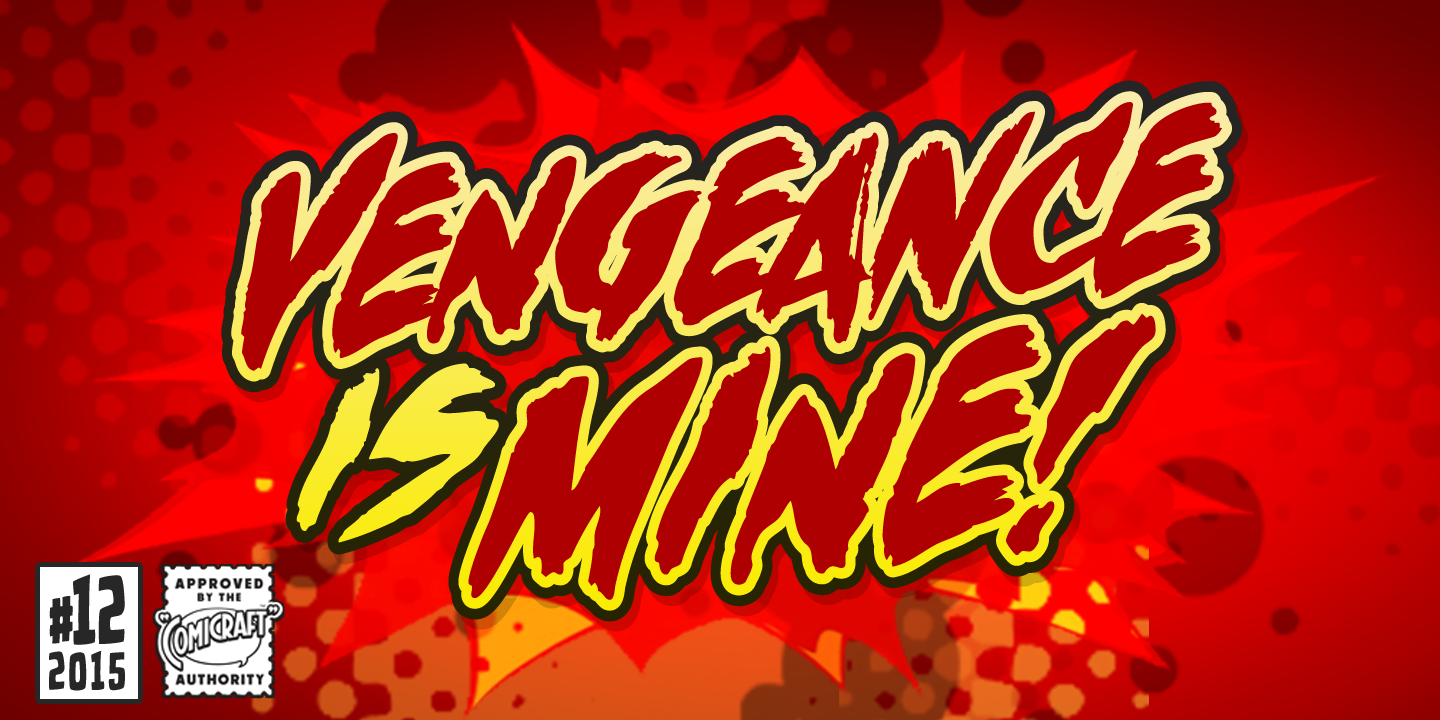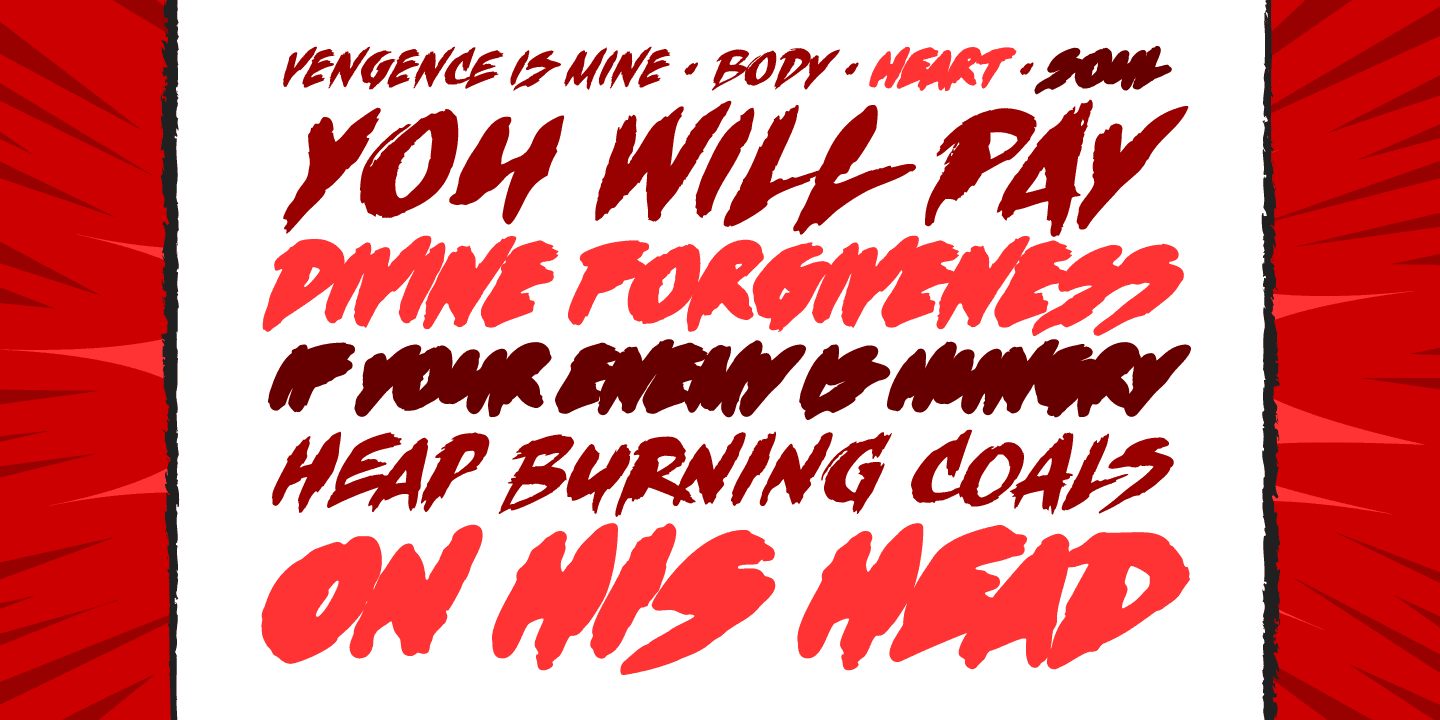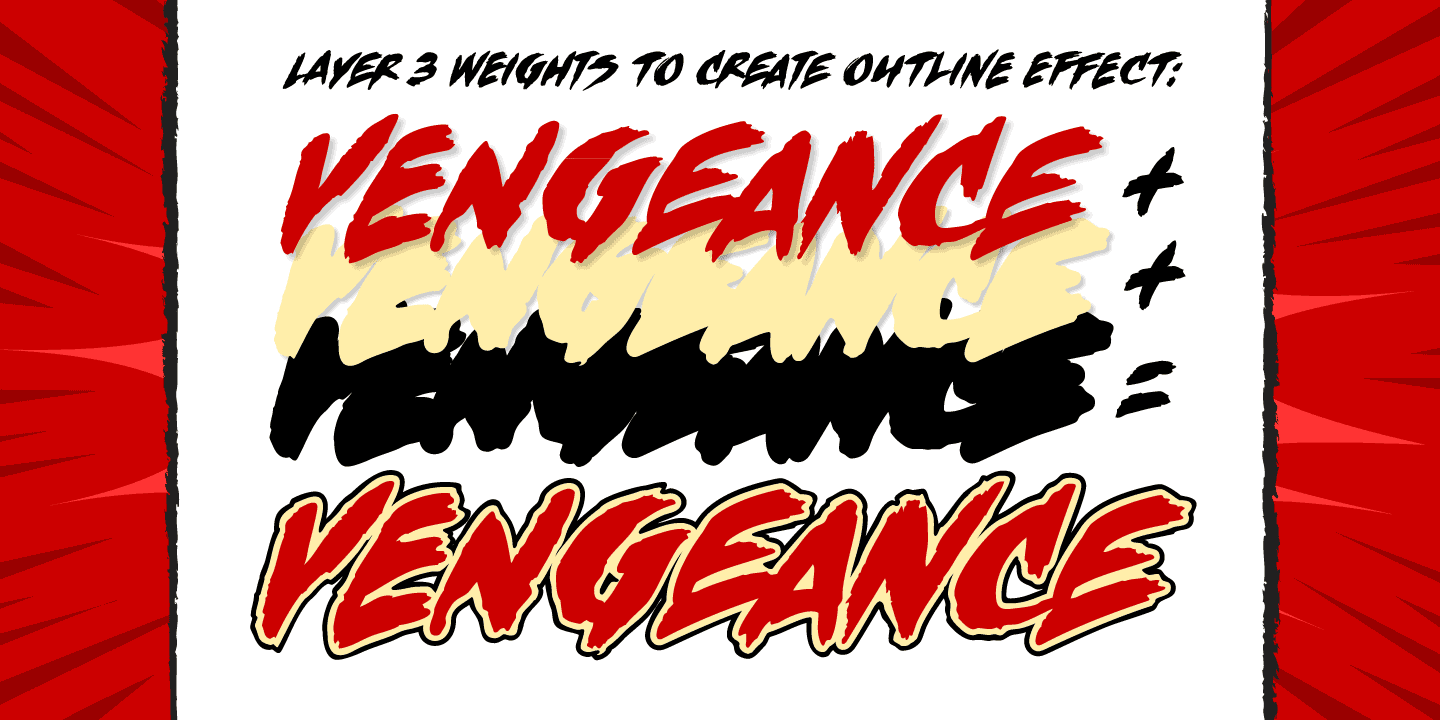
About the Vengeance Is Mine Font
About Vengeance Is Mine Font Family VENGEANCE IS MINE, I WILL REPAY, sayeth the Lord. “BUT IF YOUR ENEMY IS HUNGRY, FEED HIM, AND IF HE IS THIRSTY, GIVE HIM A DRINK — FOR IN SO DOING YOU WILL HEAP BURNING COALS ON HIS HEAD.”
“AND FURTHERMORE” sayeth the Lord, “WHEN I FINALLY GET AROUND TO EXPRESSING MY VENGEANCE, LO. MY WORD SHALL BE RENDERED IN A FONT WITH THREE RAGGED LAYERS — VENGEANCE IS MINE!” Designers: John RoshellPublisher: ComicraftFoundry: ComicraftDesign Owner: ComicraftMyFonts debut: Apr 29, 2016 Vengeance Is Mine